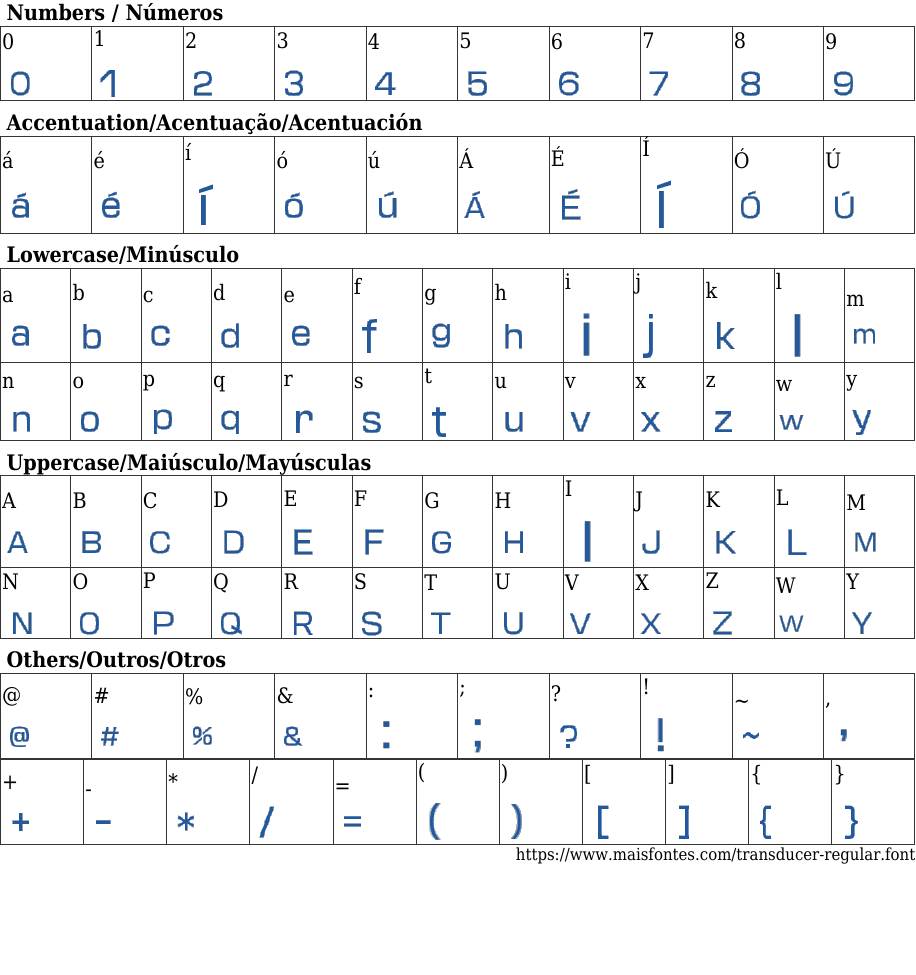
Transducer Font Download - A sans serif typeface with 30 styles, available from adobe fonts for sync. Installable on pc, mac, linux, ios, and android platforms. Discover the free transducer regular font at free font download ! Get to know the transducer font family and download it for free to use in your project. Transducer font is a modern sans serif typeface that is characterized by its clean lines, bold strokes, and geometric shapes.
Transducer font is a modern sans serif typeface that is characterized by its clean lines, bold strokes, and geometric shapes. Get to know the transducer font family and download it for free to use in your project. Installable on pc, mac, linux, ios, and android platforms. Discover the free transducer regular font at free font download ! A sans serif typeface with 30 styles, available from adobe fonts for sync.
Discover the free transducer regular font at free font download ! A sans serif typeface with 30 styles, available from adobe fonts for sync. Transducer font is a modern sans serif typeface that is characterized by its clean lines, bold strokes, and geometric shapes. Installable on pc, mac, linux, ios, and android platforms. Get to know the transducer font family and download it for free to use in your project.
A sans serif typeface with 30 styles, available from adobe fonts for sync. Get to know the transducer font family and download it for free to use in your project. Installable on pc, mac, linux, ios, and android platforms. Discover the free transducer regular font at free font download ! Transducer font is a modern sans serif typeface that is.
A sans serif typeface with 30 styles, available from adobe fonts for sync. Transducer font is a modern sans serif typeface that is characterized by its clean lines, bold strokes, and geometric shapes. Installable on pc, mac, linux, ios, and android platforms. Discover the free transducer regular font at free font download ! Get to know the transducer font family.
Transducer font is a modern sans serif typeface that is characterized by its clean lines, bold strokes, and geometric shapes. Get to know the transducer font family and download it for free to use in your project. A sans serif typeface with 30 styles, available from adobe fonts for sync. Discover the free transducer regular font at free font download.
Transducer font is a modern sans serif typeface that is characterized by its clean lines, bold strokes, and geometric shapes. A sans serif typeface with 30 styles, available from adobe fonts for sync. Installable on pc, mac, linux, ios, and android platforms. Get to know the transducer font family and download it for free to use in your project. Discover.
Get to know the transducer font family and download it for free to use in your project. Installable on pc, mac, linux, ios, and android platforms. Discover the free transducer regular font at free font download ! Transducer font is a modern sans serif typeface that is characterized by its clean lines, bold strokes, and geometric shapes. A sans serif.
Transducer font is a modern sans serif typeface that is characterized by its clean lines, bold strokes, and geometric shapes. Installable on pc, mac, linux, ios, and android platforms. A sans serif typeface with 30 styles, available from adobe fonts for sync. Discover the free transducer regular font at free font download ! Get to know the transducer font family.
A sans serif typeface with 30 styles, available from adobe fonts for sync. Installable on pc, mac, linux, ios, and android platforms. Get to know the transducer font family and download it for free to use in your project. Transducer font is a modern sans serif typeface that is characterized by its clean lines, bold strokes, and geometric shapes. Discover.
Discover the free transducer regular font at free font download ! A sans serif typeface with 30 styles, available from adobe fonts for sync. Get to know the transducer font family and download it for free to use in your project. Transducer font is a modern sans serif typeface that is characterized by its clean lines, bold strokes, and geometric.
Get to know the transducer font family and download it for free to use in your project. Transducer font is a modern sans serif typeface that is characterized by its clean lines, bold strokes, and geometric shapes. Installable on pc, mac, linux, ios, and android platforms. A sans serif typeface with 30 styles, available from adobe fonts for sync. Discover.
A Sans Serif Typeface With 30 Styles, Available From Adobe Fonts For Sync.
Installable on pc, mac, linux, ios, and android platforms. Get to know the transducer font family and download it for free to use in your project. Transducer font is a modern sans serif typeface that is characterized by its clean lines, bold strokes, and geometric shapes. Discover the free transducer regular font at free font download !